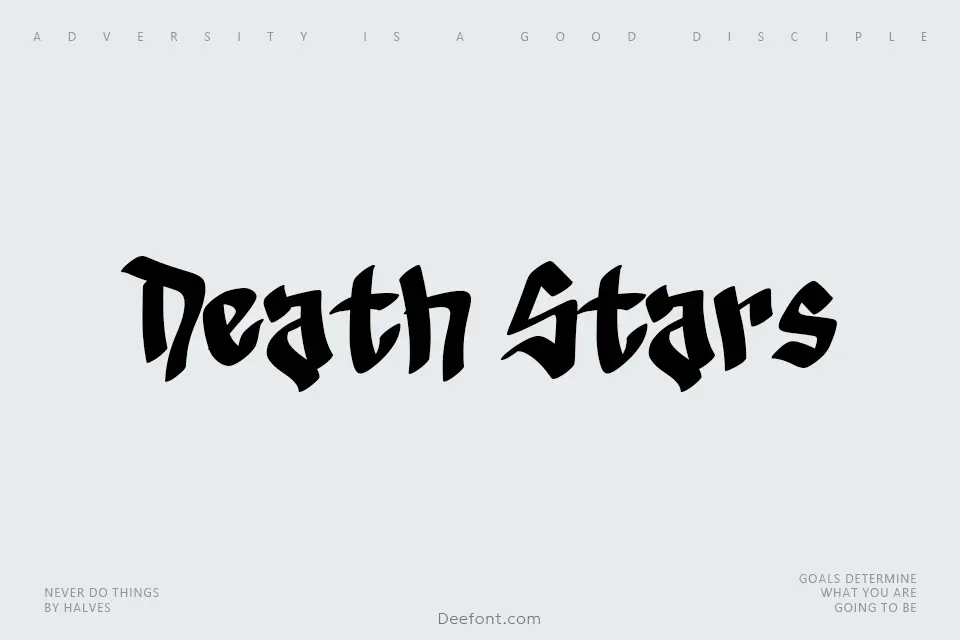
Death Stars Font
Death Stars is a bold graffiti font that fuses streetwise swagger with a chiseled blackletter bite, featuring thick inky strokes that snap into sharp angles while chunky curves maintain excellent readability. This distinctive typeface delivers instant attitude for album covers, horror posters, esports branding, streetwear labels, and creative projects. With geometrically rounded curves and hand-cut textures that feel authentically splattered, it brings a gritty, high-impact presence to headlines without descending into visual chaos, making it perfect for bold display typography.